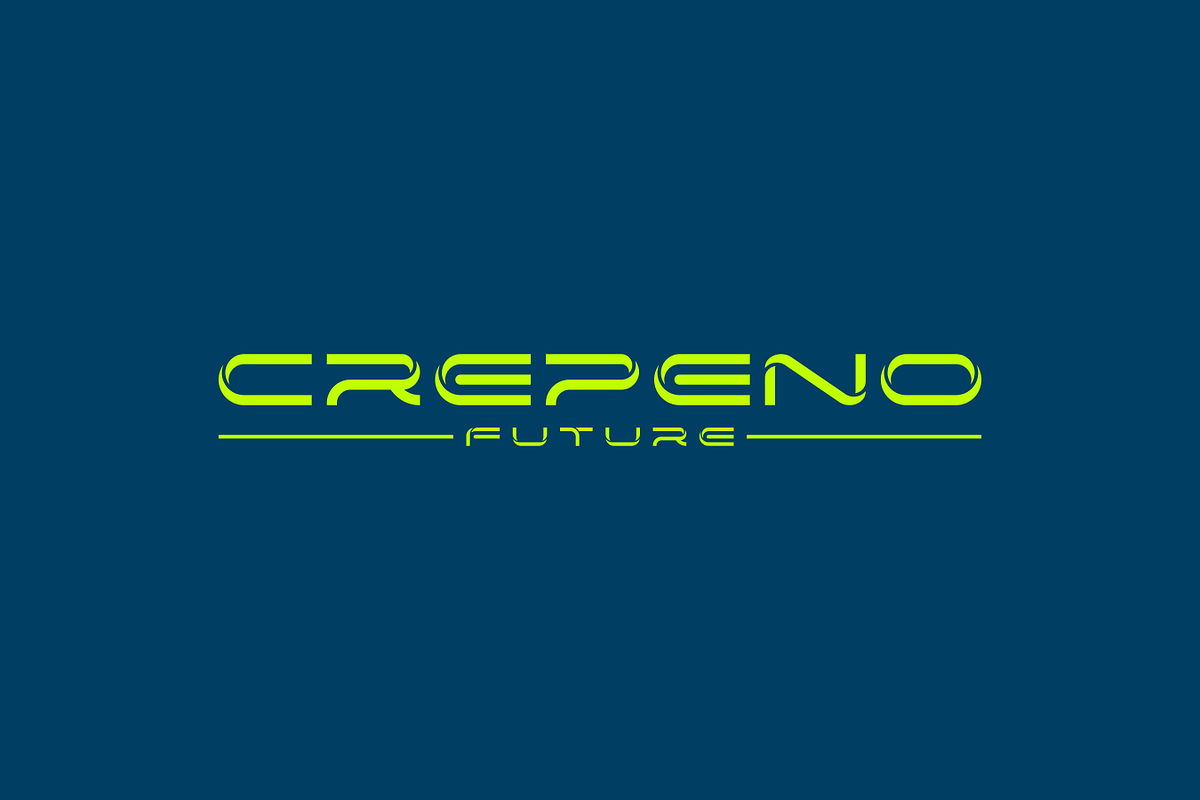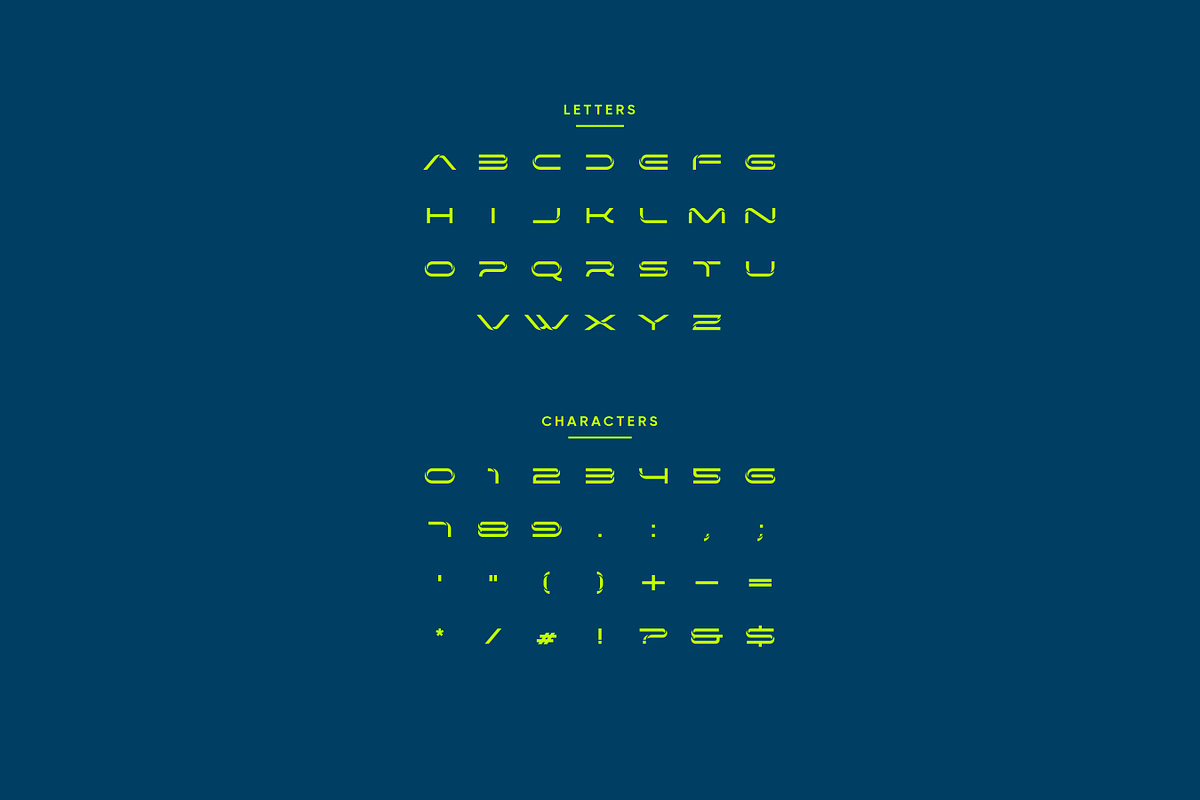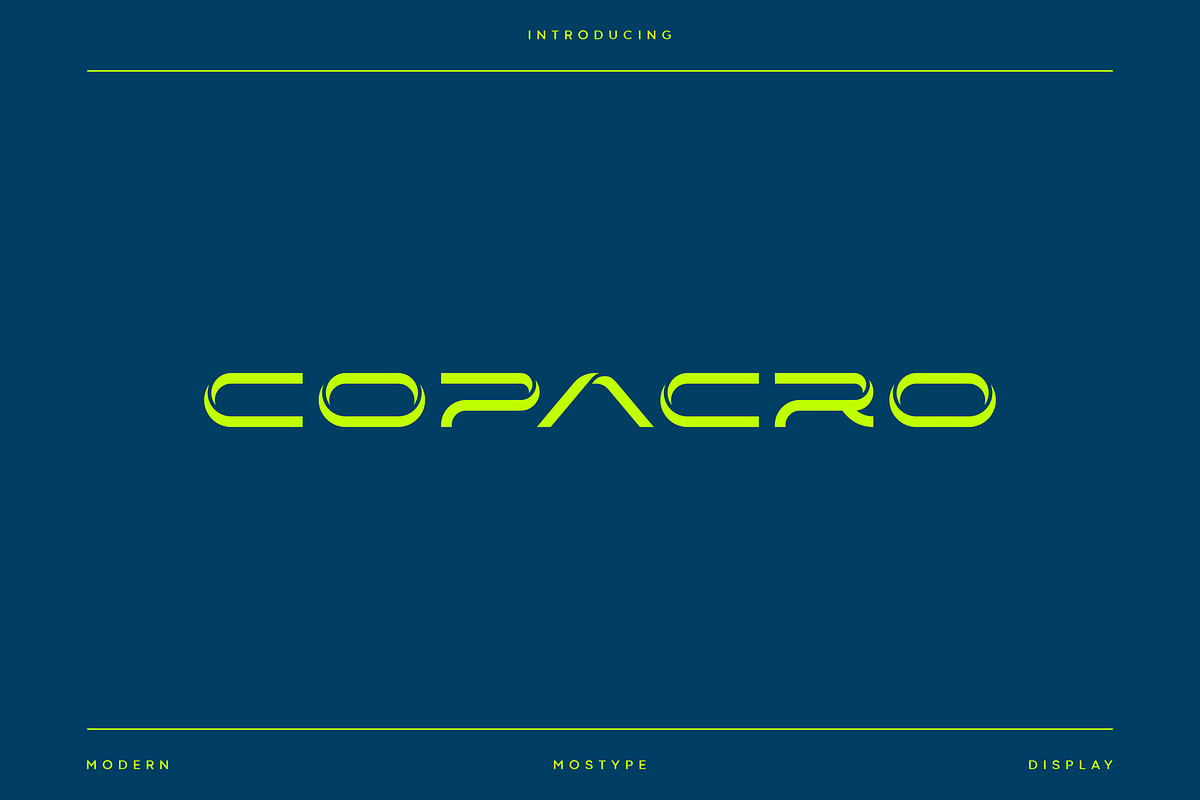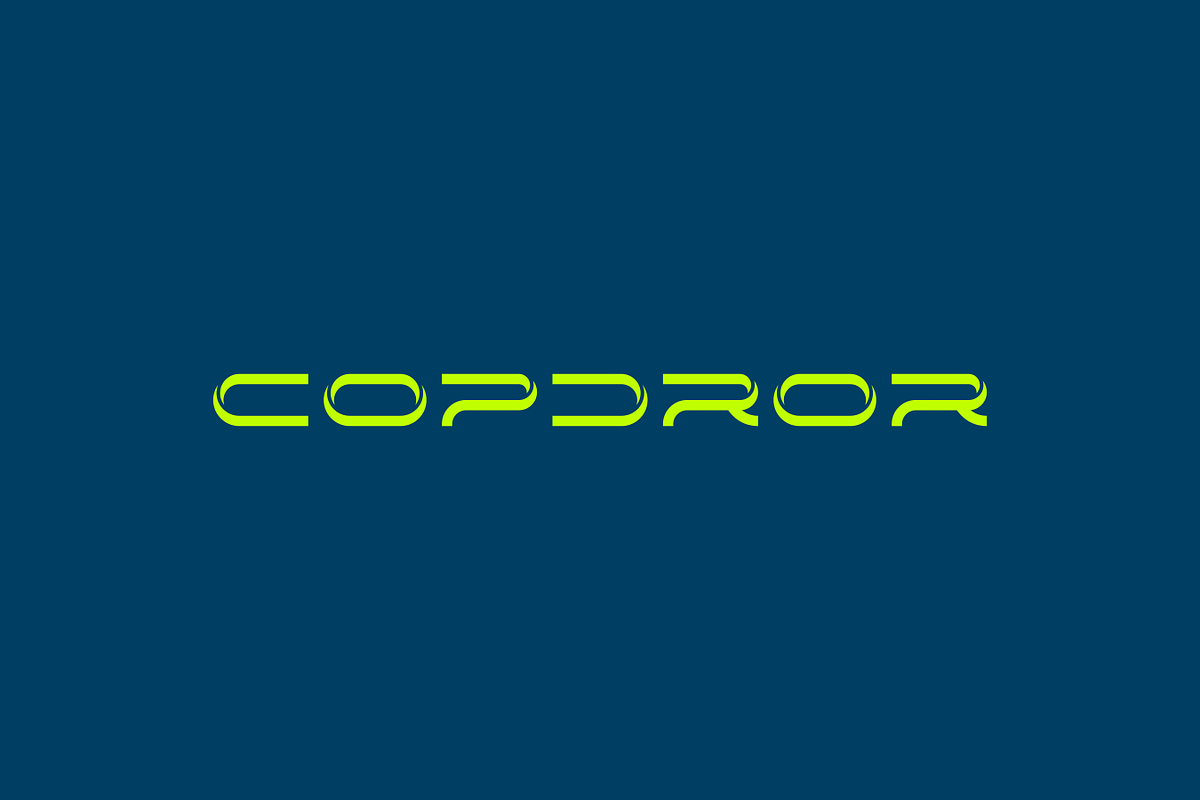
Copacro - Modern Futuristic Typeface
Copacro is a modern futuristic font with unique uppercase, come with all-caps that will make your design looks futuristic and modern. You can use this font for any purpose, especially to make hi-tech logotype, this font is also suitable for science-fiction movie poster. With an elegant and clean appearance that will make it look good when used as a logo design, branding, and various designs that require the feel of the future.
- Punctuation & Number